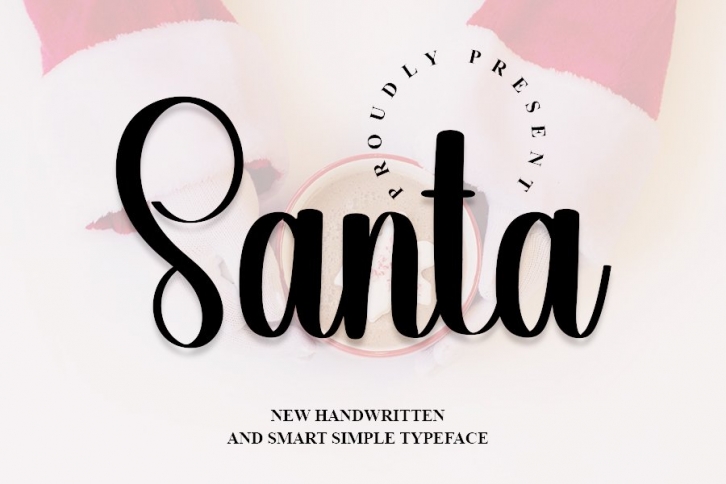
Santa is a gorgeous font that was realeased on October 18, 2022. The font can be used in many style contexts and design environments. Perfect for invitations, magazines, websites, logos, and more! It was designed by InermediaSTUDIO and the file size is 18.95 MB. Thanks for checking out this font!